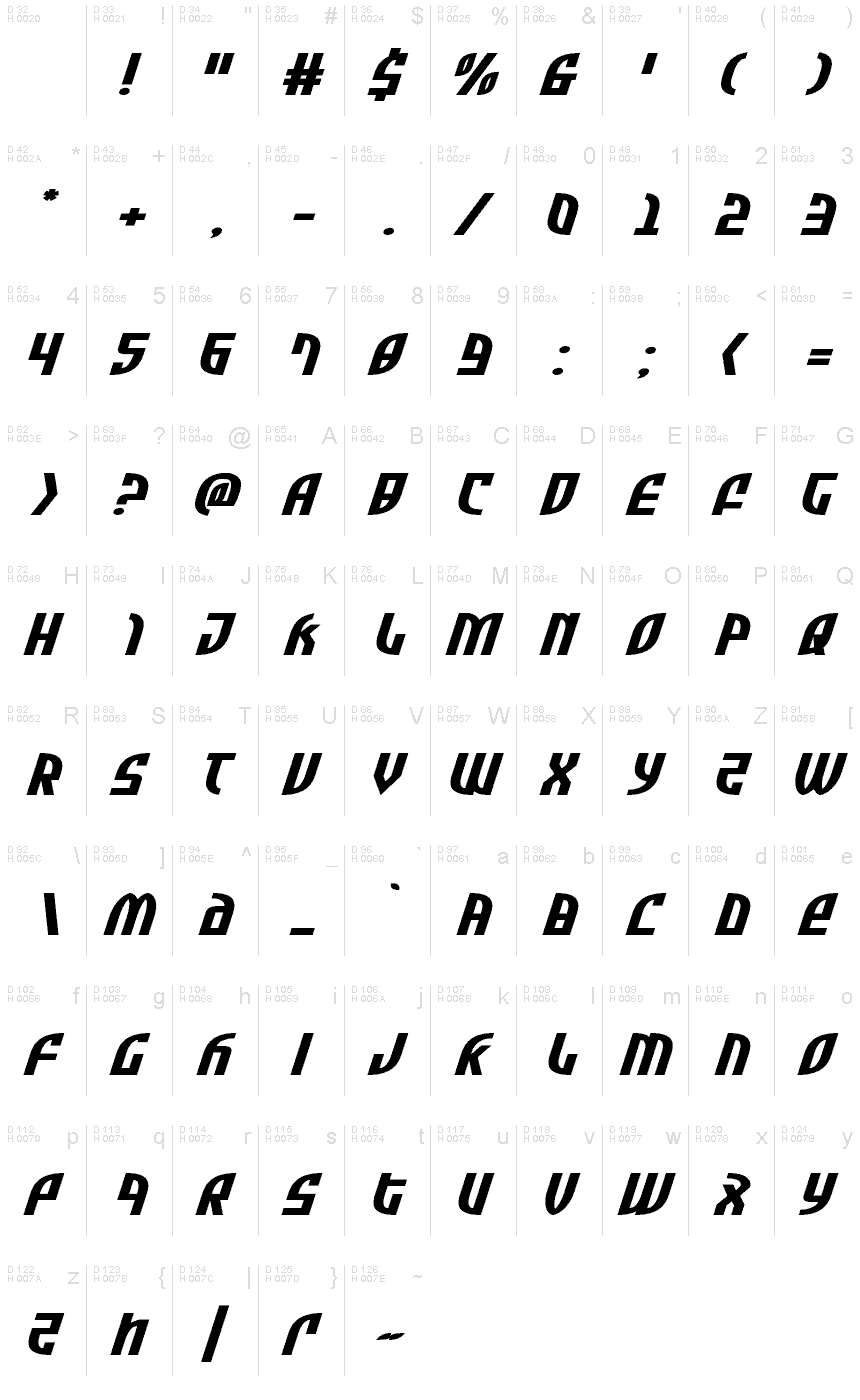
Zone Rider Xtra-Expanded Ital
Zone Rider Xtra-Expanded Italic font by Iconian Fonts is a futuristic display typeface with exaggerated angles, along the shapes of its characters. The geometric proportions of the letters render a sleek and modern design suitable for assertive typographic displays. Each characters possess horizontal lines and intersections that break its overall dense look.
Use this font freely to write branding slogans, packaging details, album covers and names, magazine cover mastheads, ad headlines or copy text in posters. Its constructed style makes it usable in science-related presentations, sci-fi movie titles or animations that need to have an upgraded look.